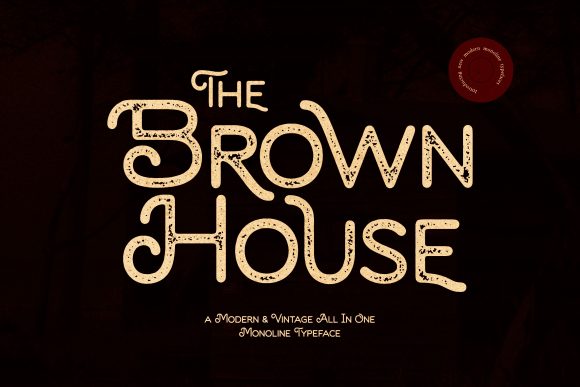
Get ready to dive into a world of funky retro aesthetics with Brown House Font, the ultimate display font that captures the essence of pop art and vintage vibes. Created by almarkhatype, this font is not just a collection of letters; it's a journey back in time, a celebration of nostalgia, and an invitation to let your creativity soar.
With its bold, playful strokes and charming imperfections, Brown House Font is a true gem. Each character dances and sways with personality, bringing a sense of energy and movement to your designs. Whether you're creating posters, flyers, social media graphics, or eye-catching headlines, Brown House Font will make your words pop and leave a lasting impression.
Picture this: a poster for a groovy music festival, adorned with Brown House Font. The letters seem to jump off the page, inviting you to get lost in the rhythm of the music and the vibrant colors. Or imagine using Brown House Font to create a retro-inspired logo for your online shop, instantly evoking a sense of trust and authenticity.
The possibilities are endless with Brown House Font. Its versatility knows no bounds. From whimsical invitations to eye-catching book covers, this font will elevate your designs and make them stand out from the crowd. It's the perfect choice for designers, artists, and anyone looking to add a touch of vintage charm to their creative endeavors.